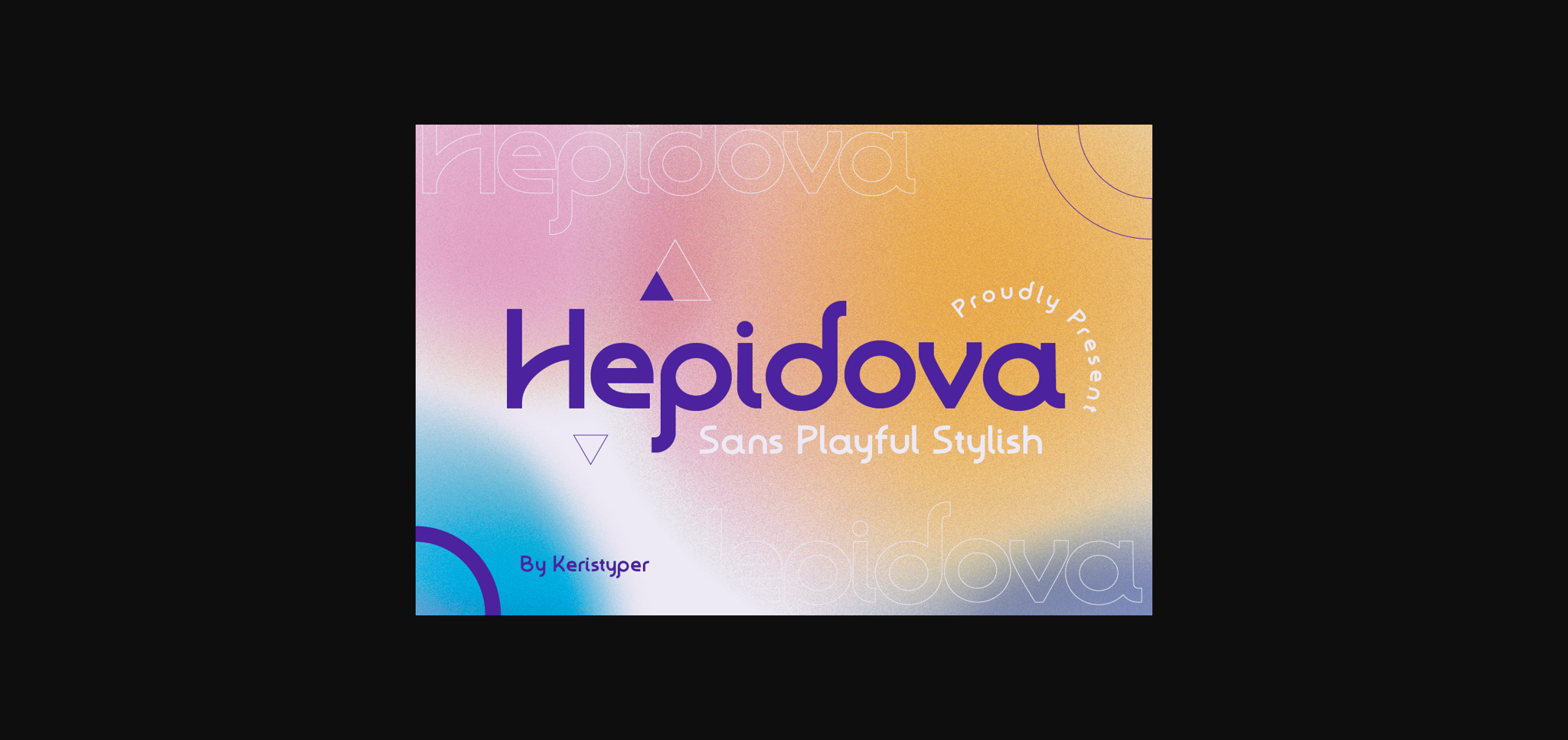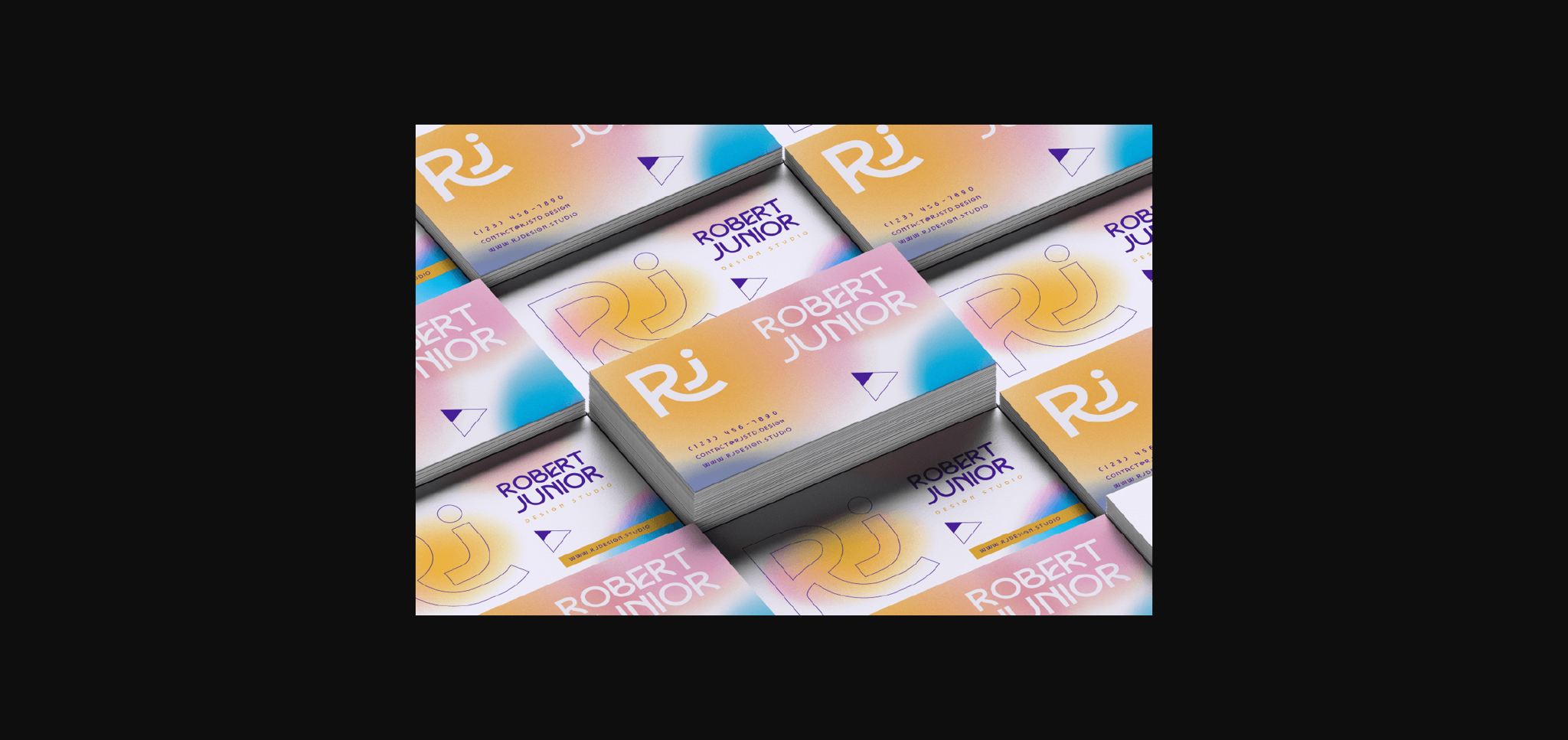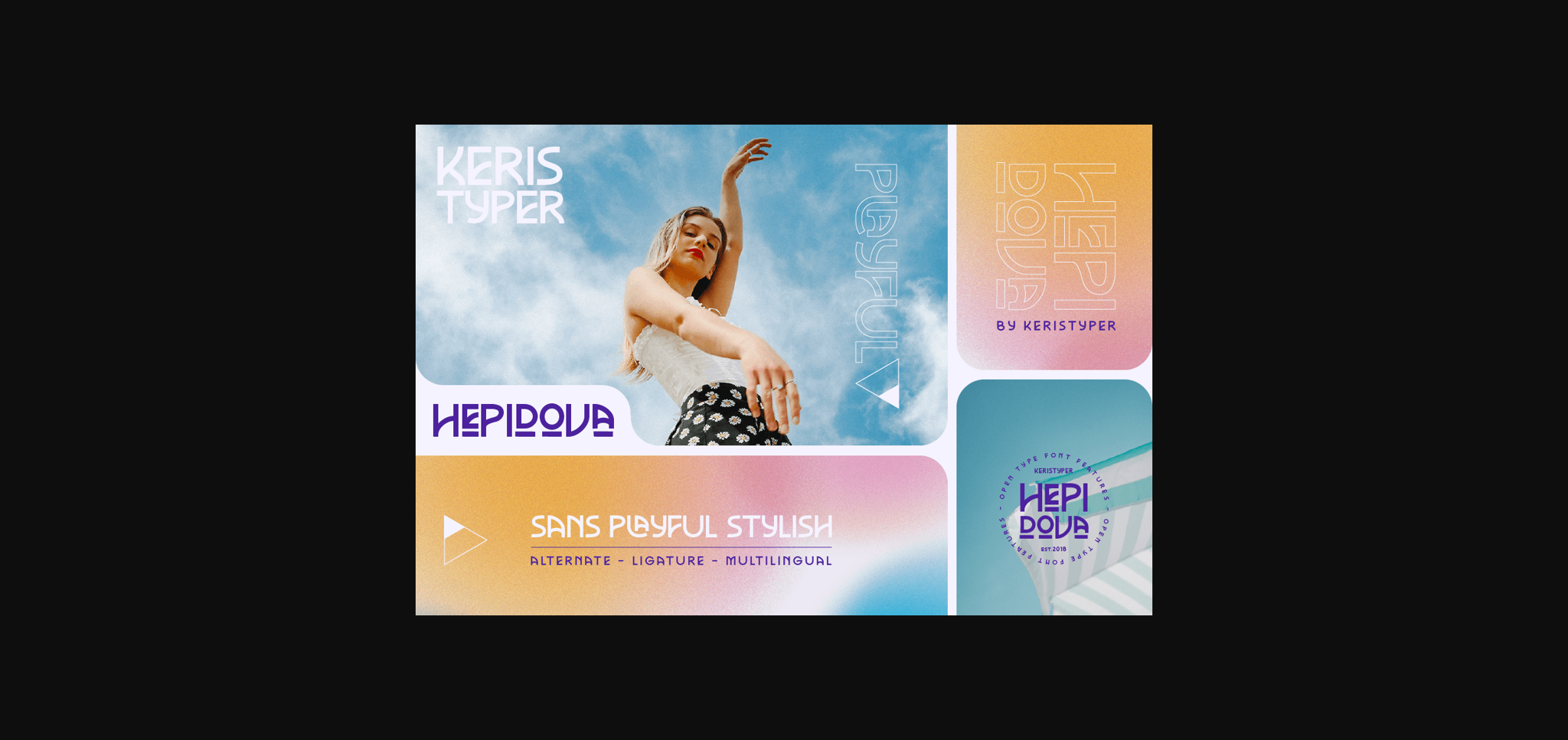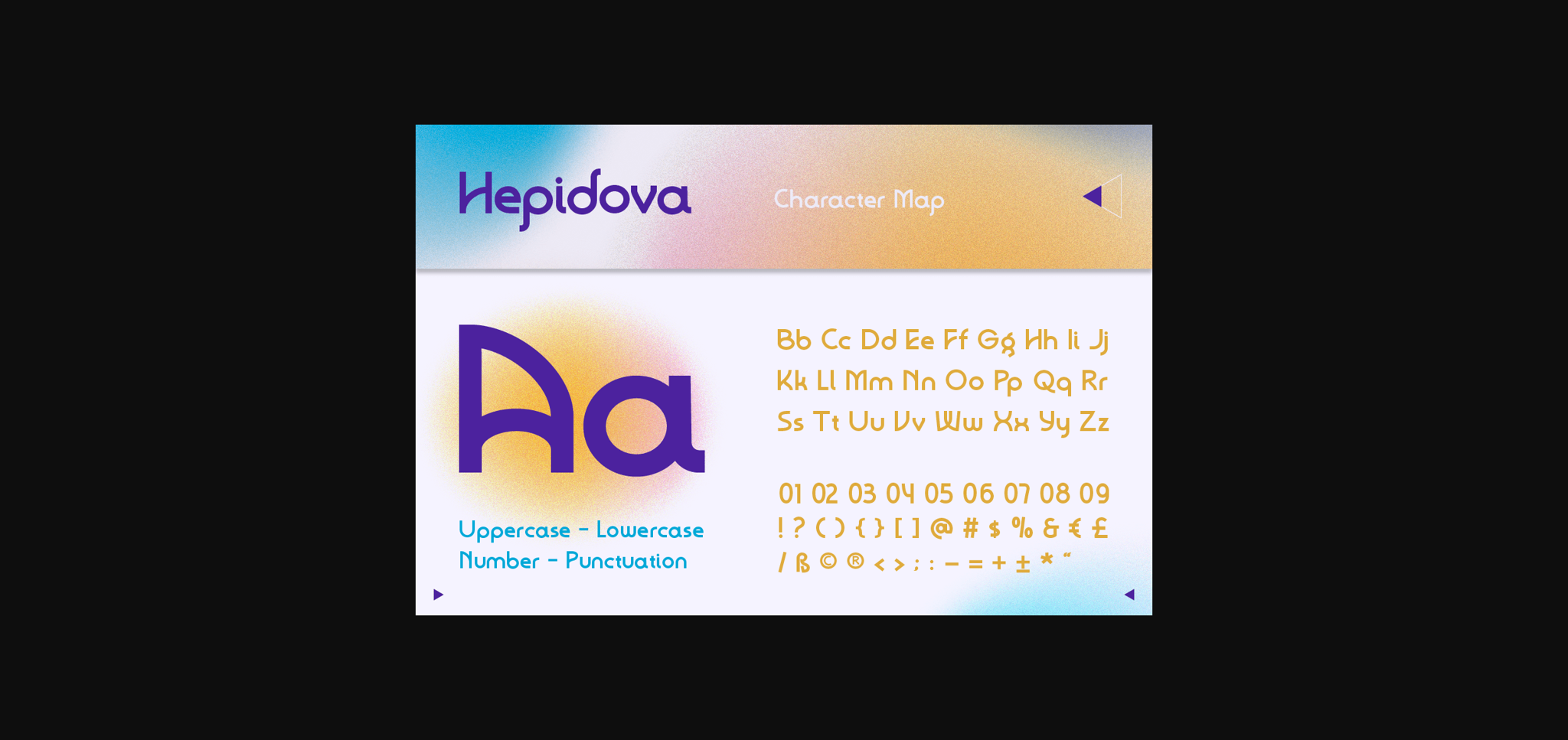
About Hepidova Font
Hepidova is a playful and modern sans-serif font. This typeface is good for logo designs, social media, movie titles, book titles, short text, and long text and good for your secondary text combined with a serif.